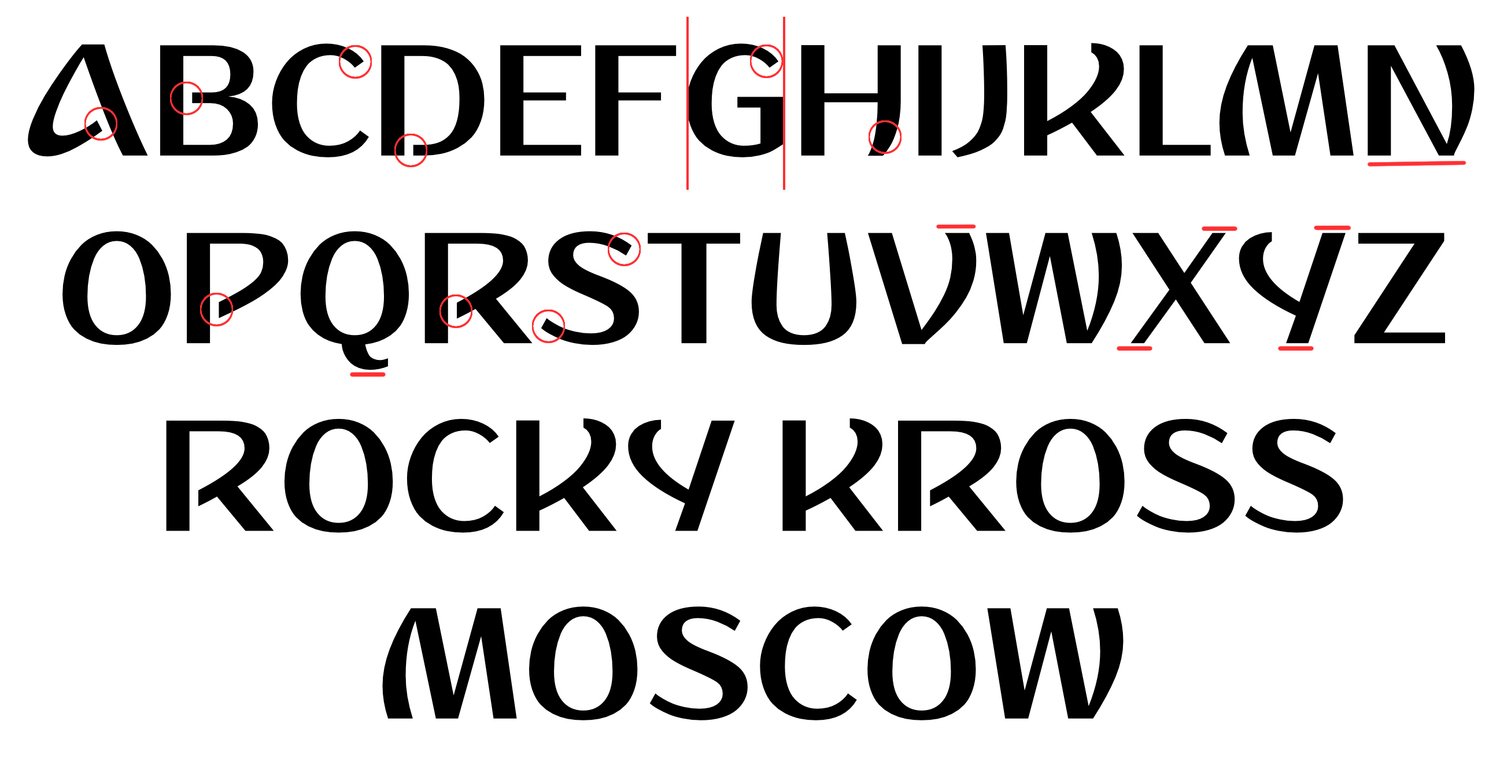
Dusha
Based on a series of rough sketches provided by Portuguese branding studio Brandia Central we produced Dusha, a typeface to be used by the Russia World Cup 2018. We had to build a unified, structured and complete typeface, with Latin and Cyrillic characters, despite the fact that most characters don’t share any geometric principles but pure visual relationships among them.